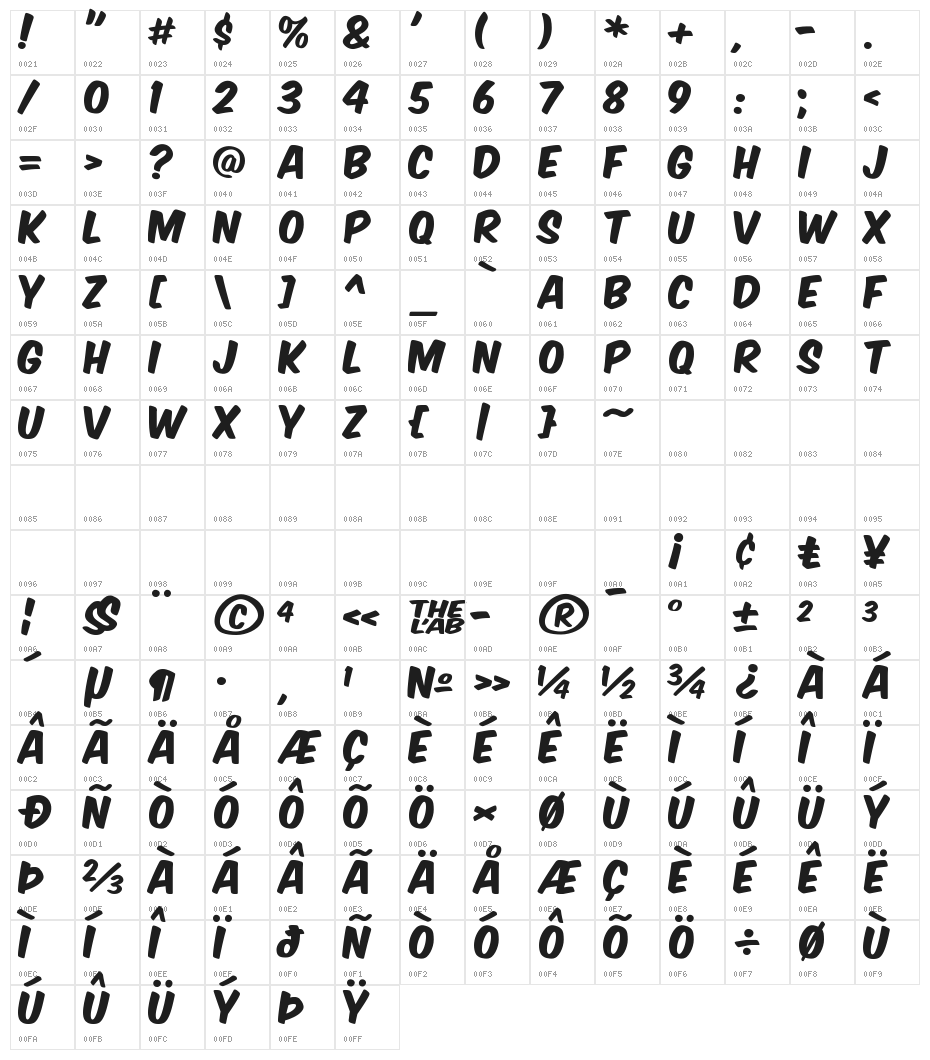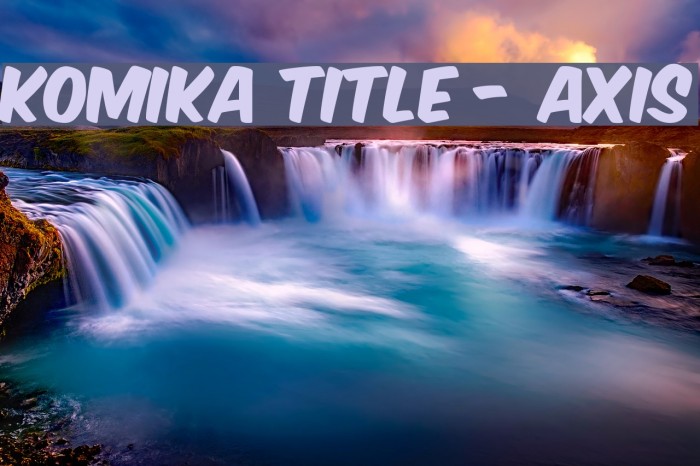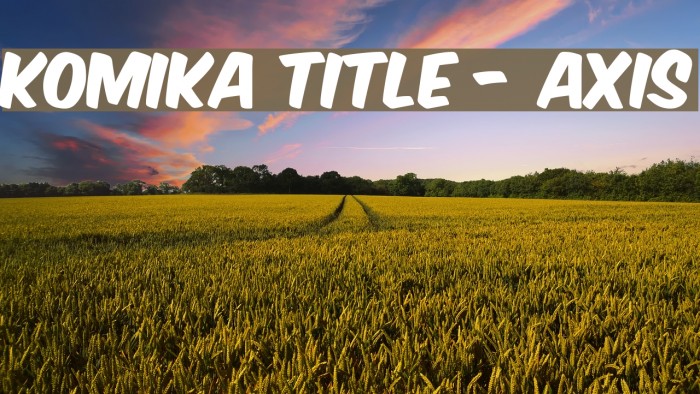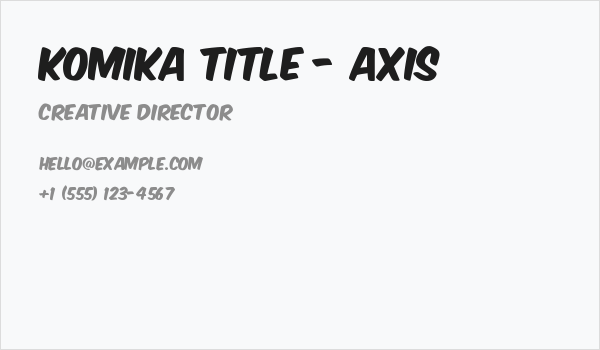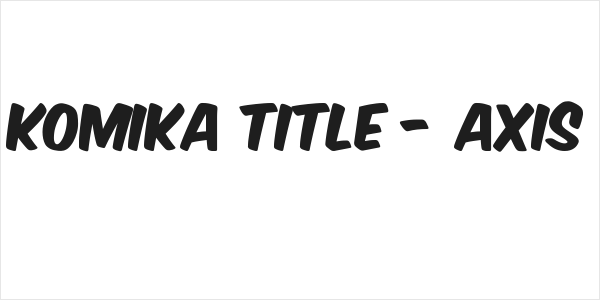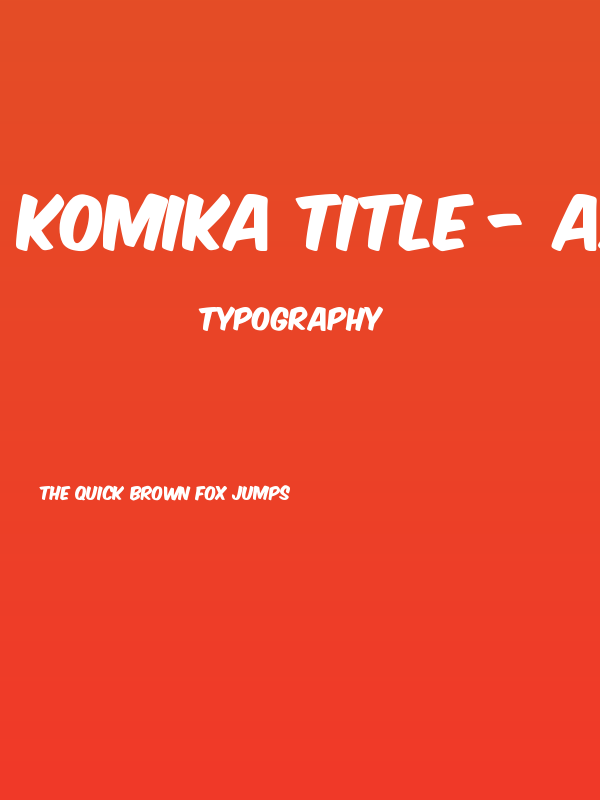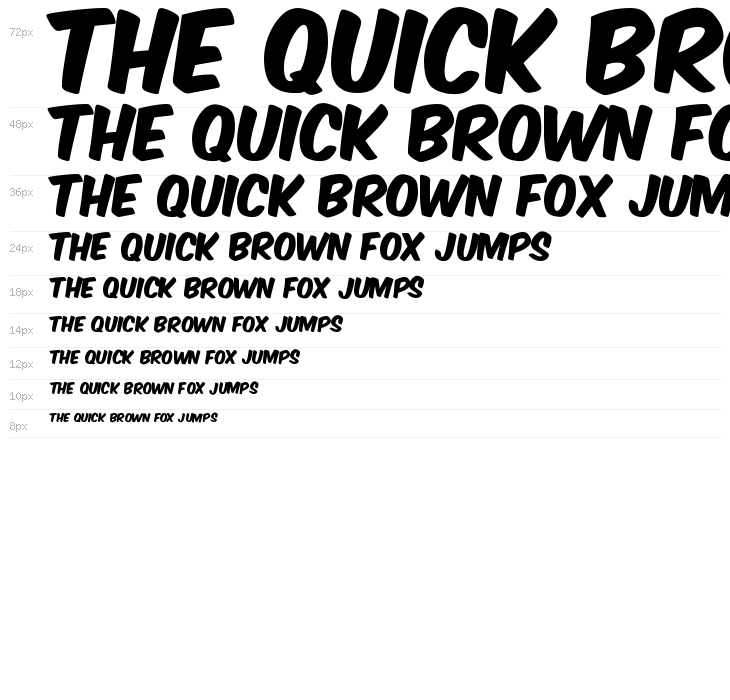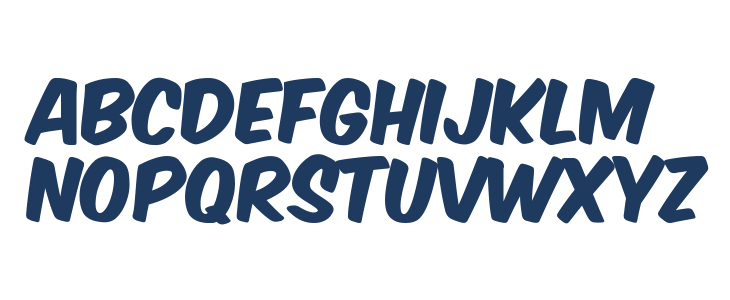
Komika Title - Axis Font
Komika Title - Axis Description
This font features bold, dynamic characters with a playful and energetic style. The letters are slightly slanted, giving a sense of movement and excitement. The strokes are thick and consistent, providing a strong visual impact. The overall appearance is casual yet assertive, making it suitable for projects that require a fun and engaging look. The numbers and special characters maintain the same lively aesthetic, ensuring consistency across all text elements.
Overall StylePlayful, Energetic
Proposed ProjectsIdeal for comic books, children's books, playful branding, and eye-catching headlines.